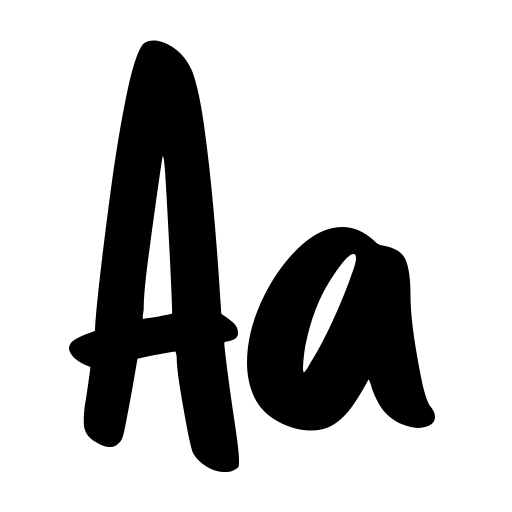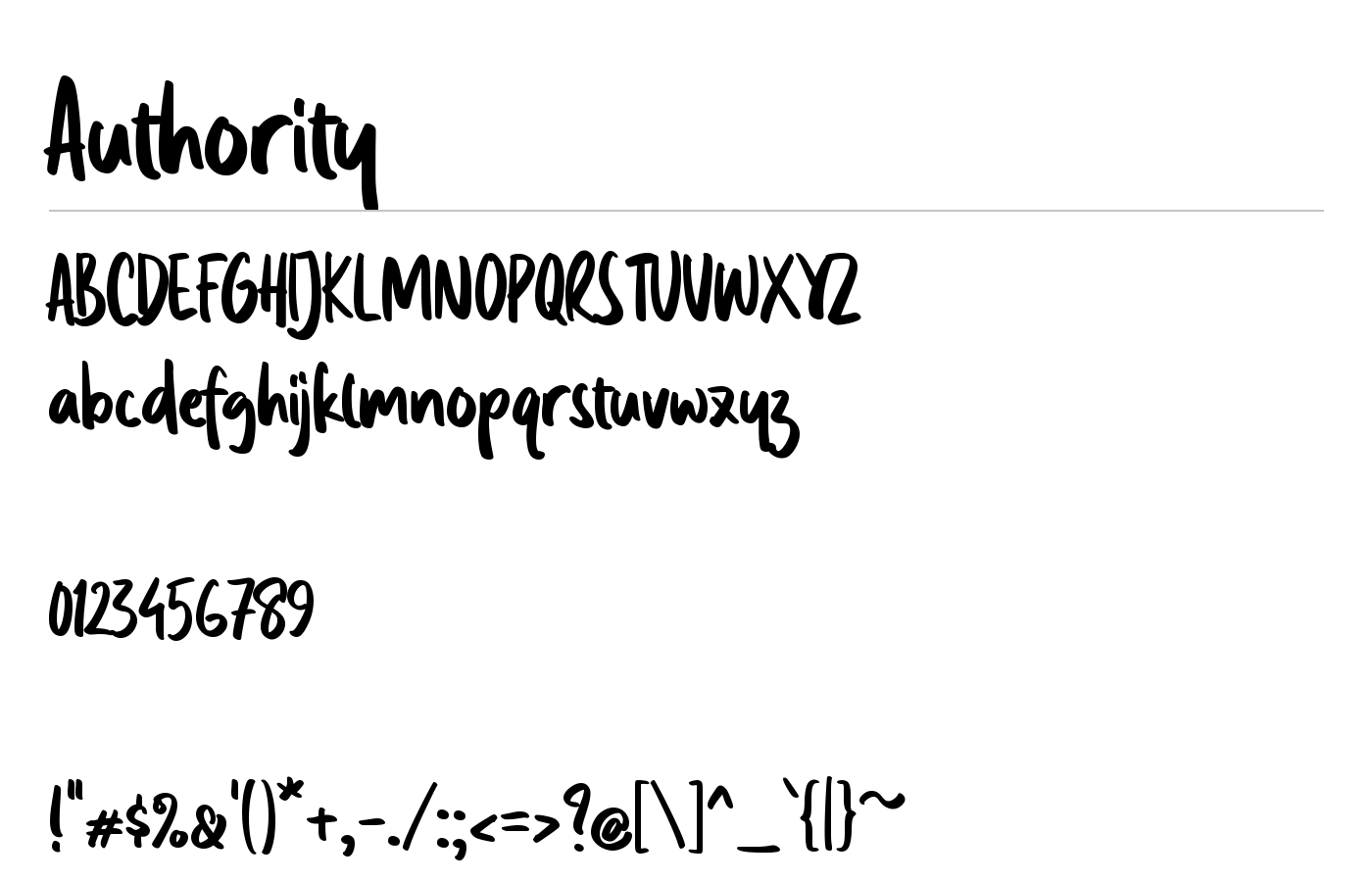
Authority Font is a playful and informal handwritten typeface with a casual, brush-like feel. Its irregular strokes and lively character shapes make it ideal for creative projects, personal branding, and designs that want to convey friendliness and approachability. This font works great for headlines, logos, and social media graphics where a natural, human touch is desired.
Authority Font
About Authority Font
| Font family | Authority Font |
| Designer | Masa Aska Sanurumi |